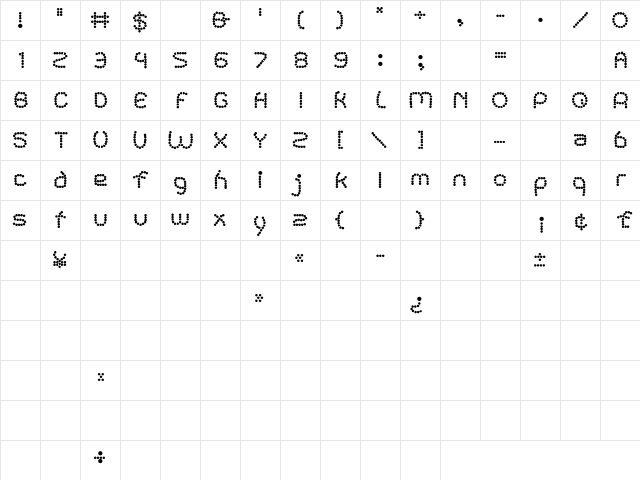
roinert Regular
Design Context for roinert
roinert is a composed and adaptable typeface that performs quietly and consistently across a wide range of design contexts.